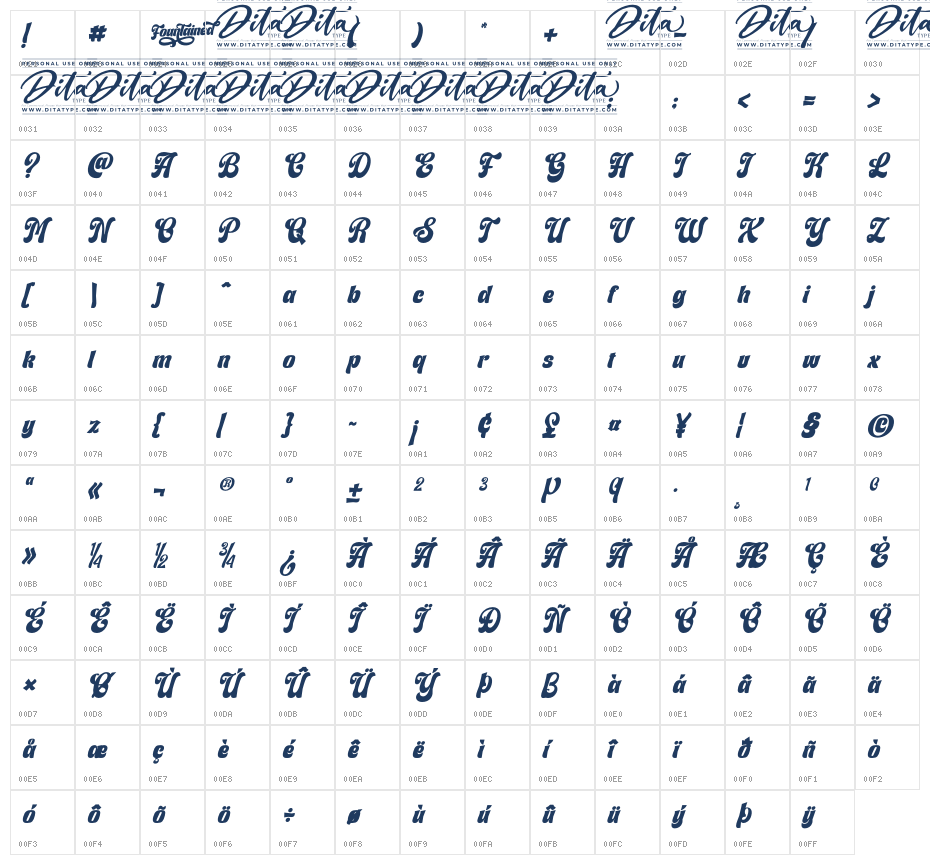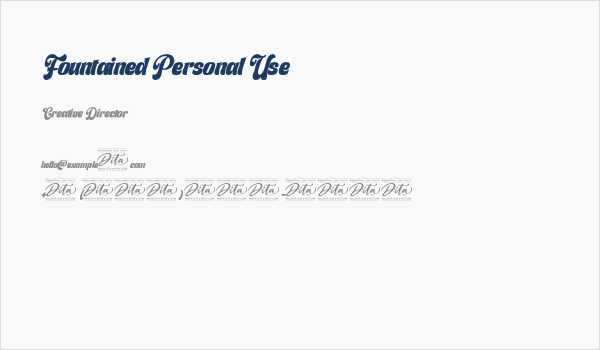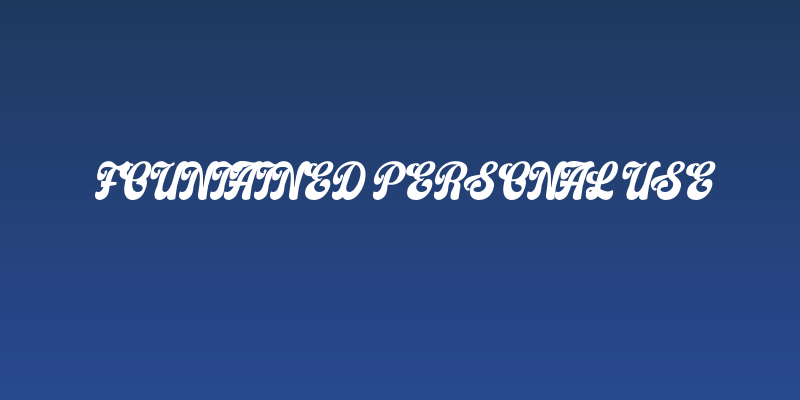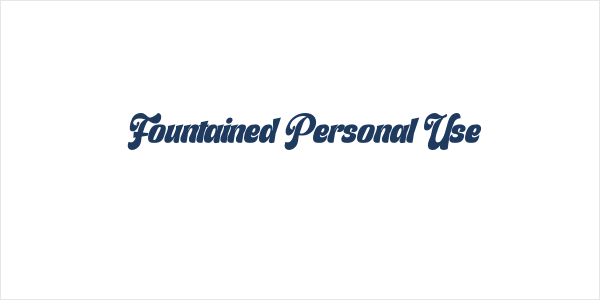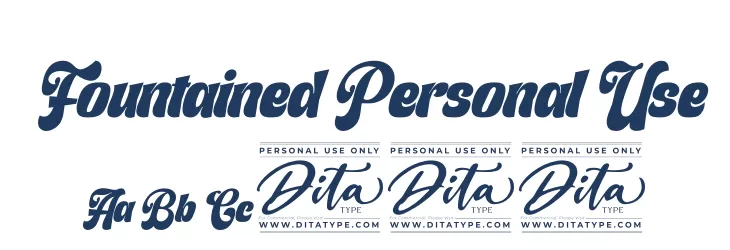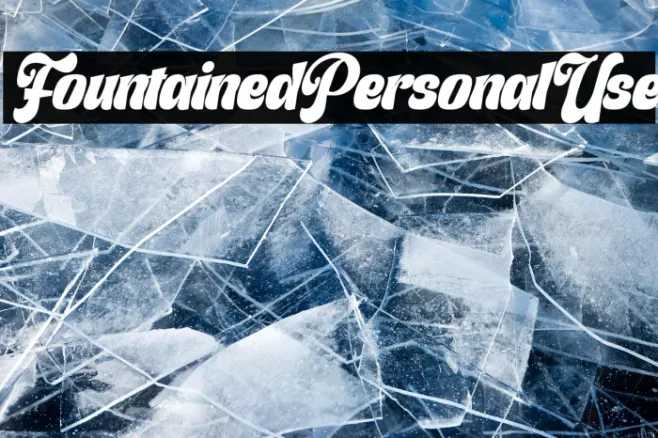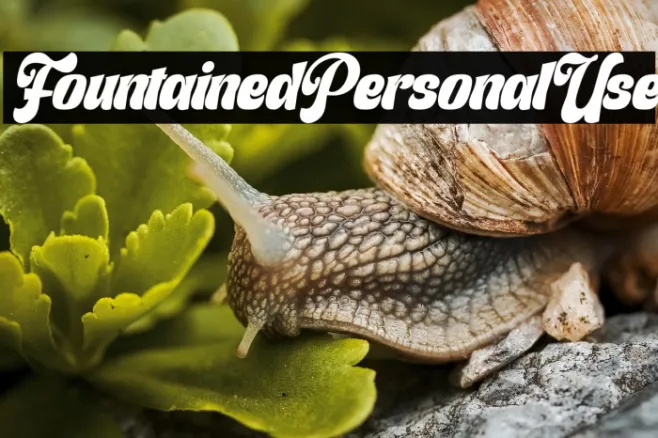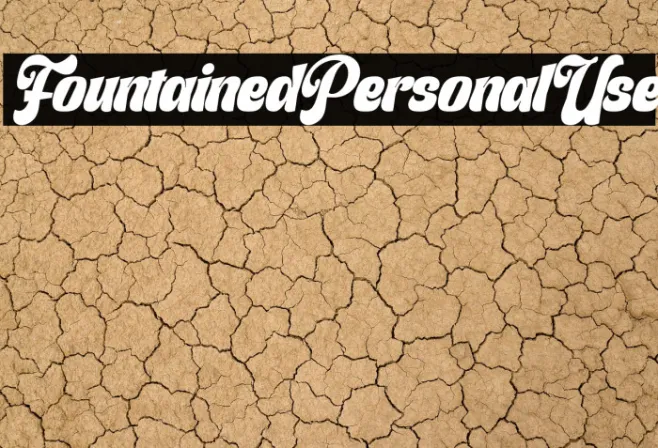
Fountained Personal Use Font
Fountained Personal Use Description
A bold, cursive script font with a vintage and decorative style, featuring smooth, flowing lines and a slightly thick stroke.
Fountained Personal Use
| Overall Style | Vintage, Decorative |
| Use Case | Headlines, Logos, Invitations, Branding |